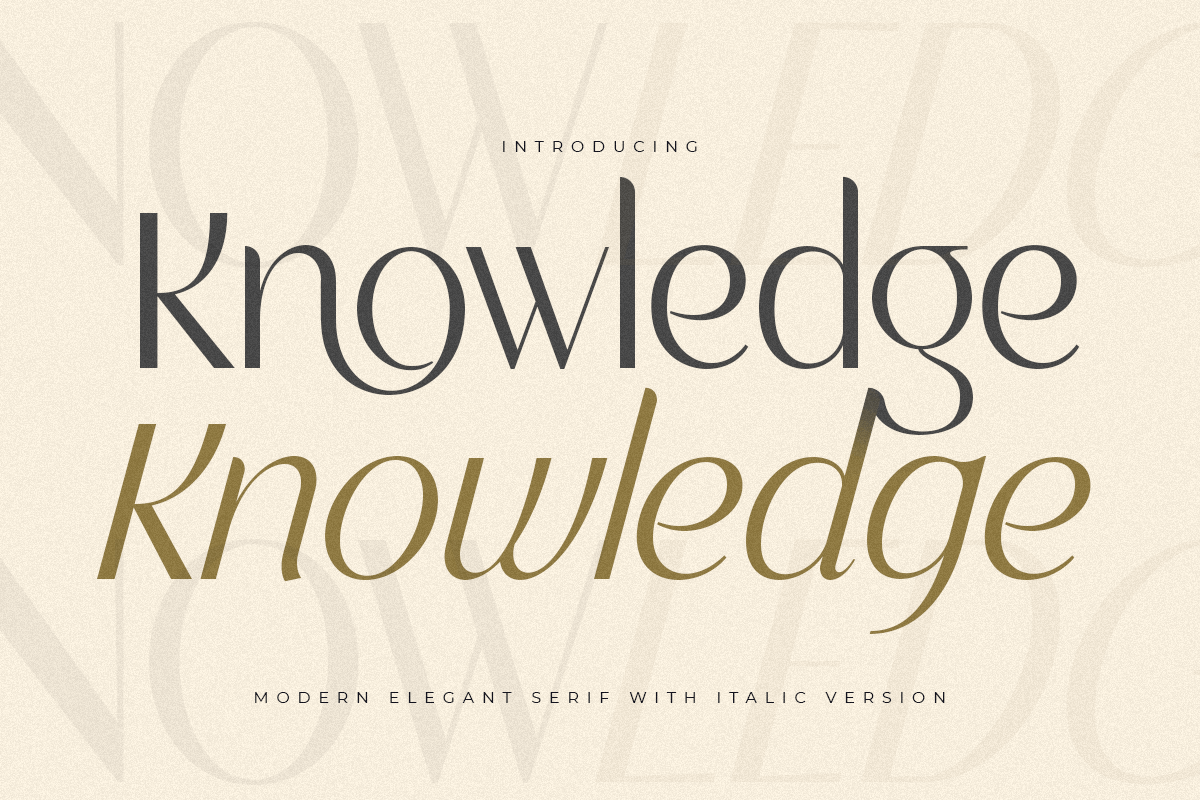
Knowledge
-Modern Elegant Serif
An Elegant Serif font that we created special for elegant branding needs, with extra ligatures in unique shape will be ready to add value of your brand. It so nice to leverage designer or product owner that need solutions to make their design look more classy and modern. And specially for this font, We prepared any ligatures characters to help you create unlimited variations for your creative needs.
Knowledge serif font ready with:
• Any options to get creative with italic version and any variations (combination of Ligatures)
• Preview as a inspirations that you can do with Knowledge font